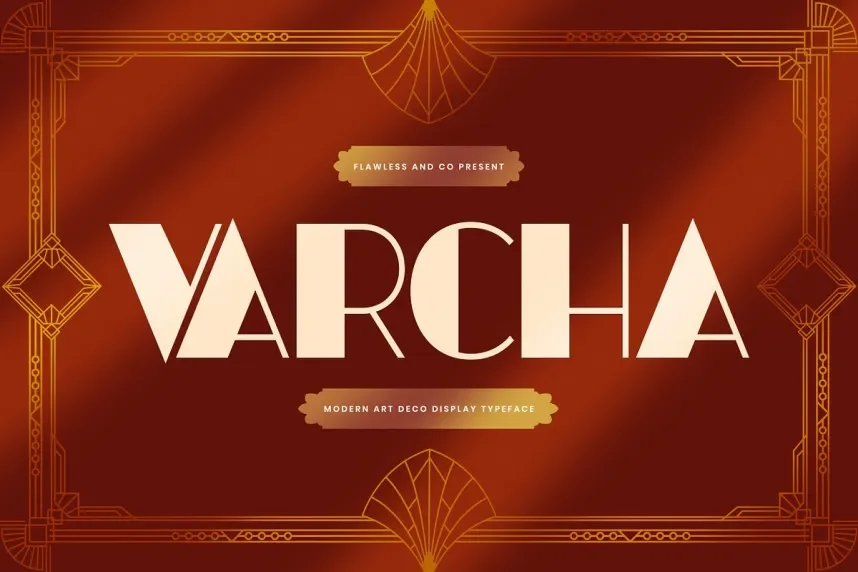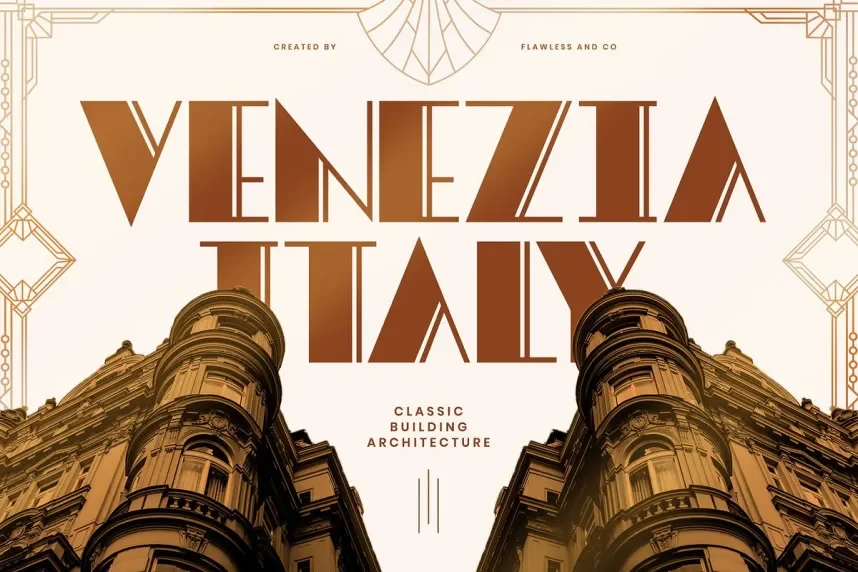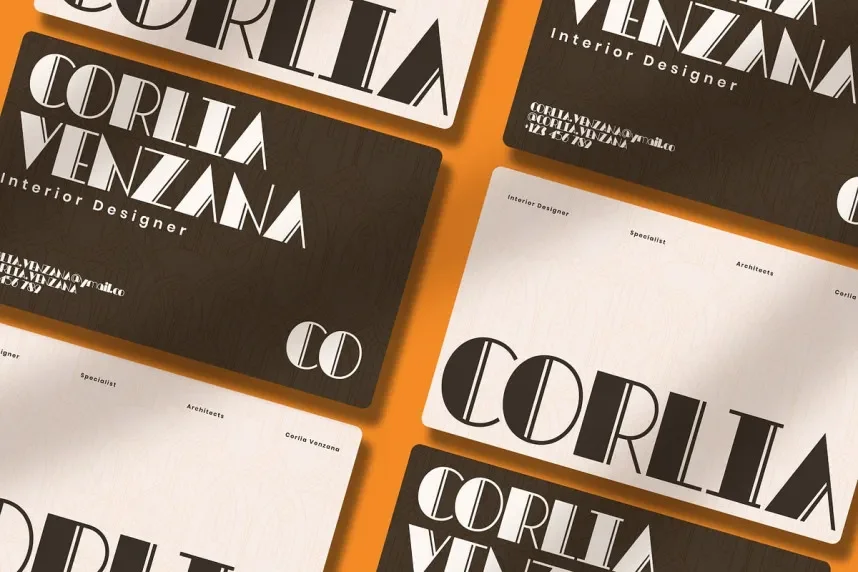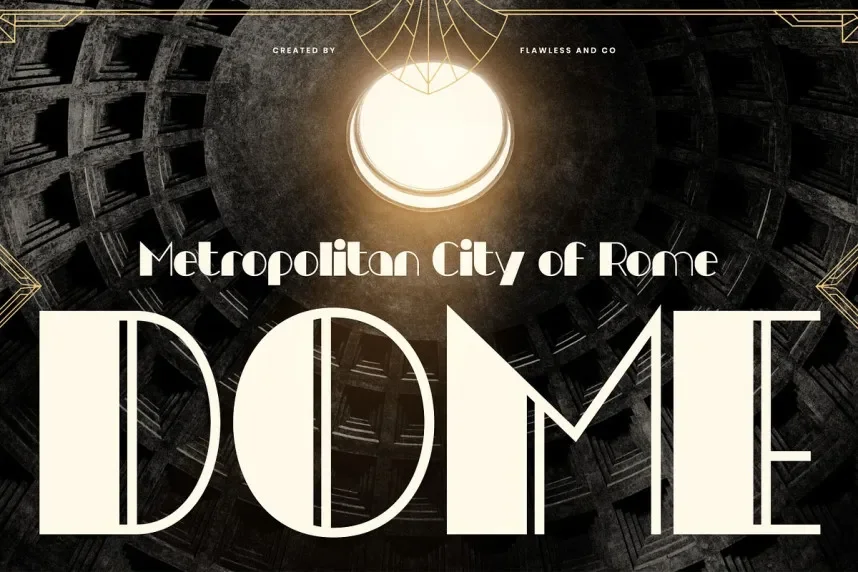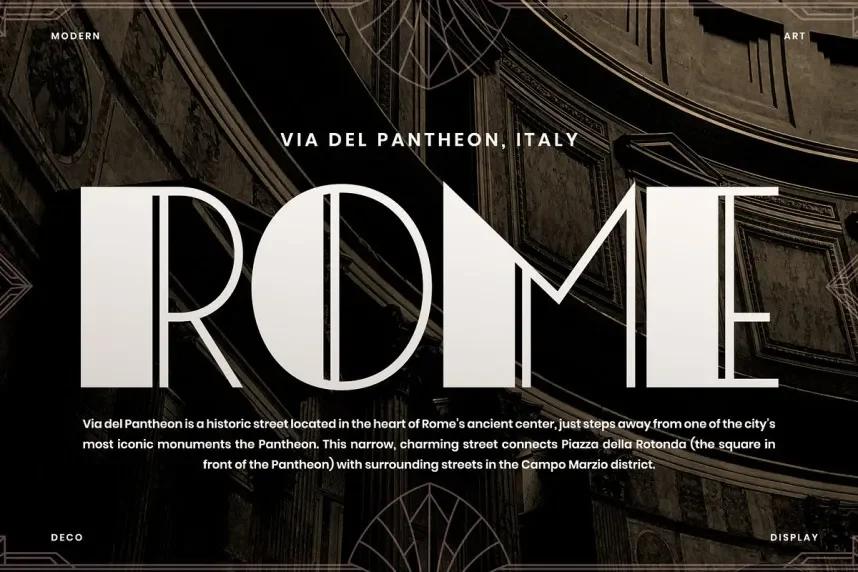
Varcha Font is a display typeface with heavy strokes, solid shapes, and minimal contrast. The letterforms use wide proportions and firm edges, which helps text stand out in banners and cover designs. Its construction focuses on impact rather than paragraph reading, making it suitable for short text and graphic layouts.